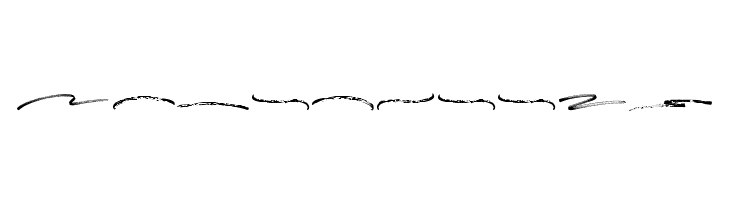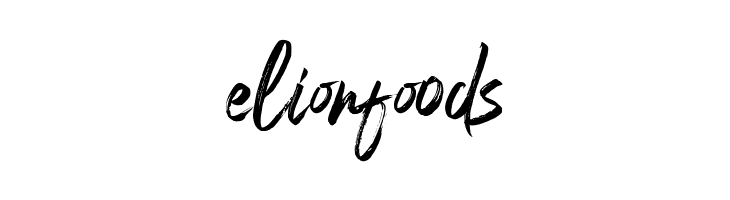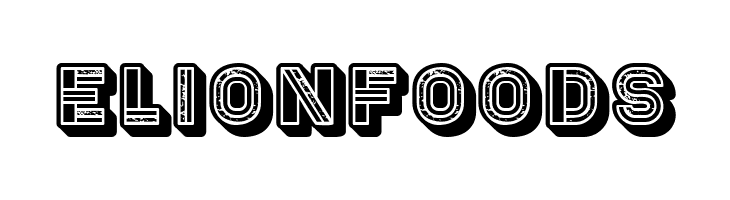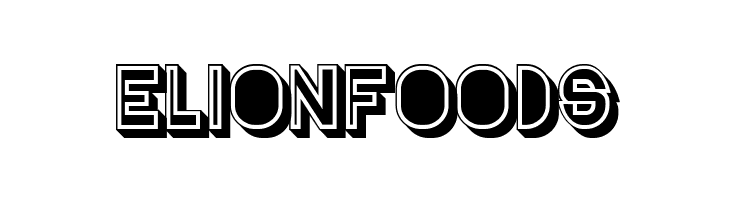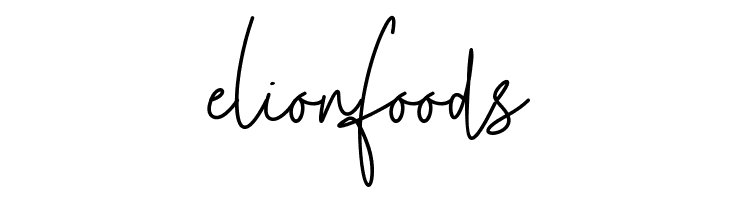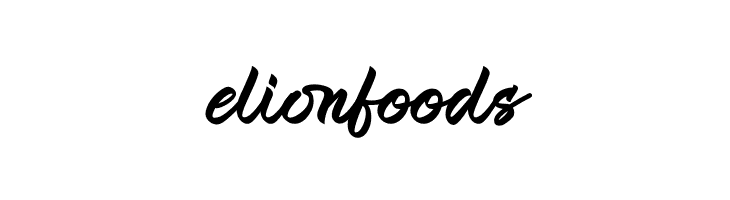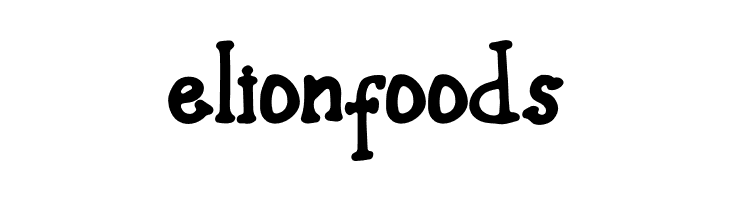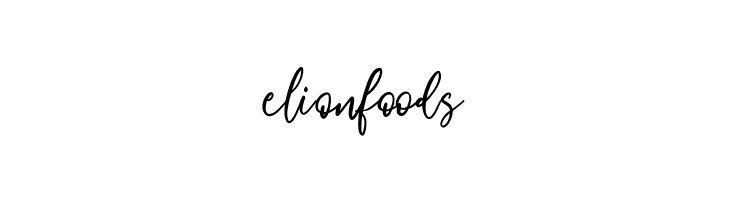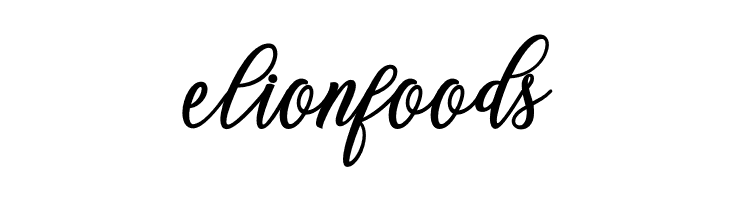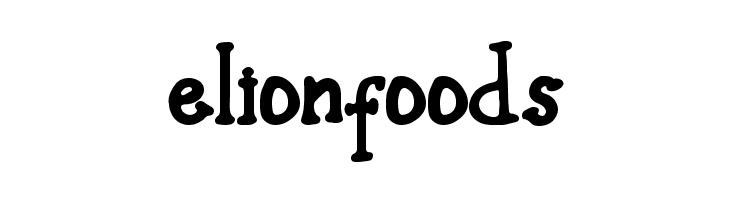
A fluid and elegant handwritten font with connected strokes and a dynamic slant.
A delicate, handwritten font with elegant, flowing strokes and a sophisticated style.
A playful, hand-drawn font with bold, rounded characters and a whimsical style.
A playful, hand-drawn font with rounded, bold strokes and a whimsical style.
A bold, decorative font with a three-dimensional, layered line effect.
A bold, decorative font with a 3D effect and intricate line patterns.
A modern, geometric font with clean lines and a minimalist style.
A bold, cursive font with smooth, flowing lines and a dynamic style.
A dynamic, brush-style font with expressive strokes and artistic flair.
A bold, condensed font with high contrast and elongated characters.
An elegant script font with flowing swashes and dynamic contrast.
A bold, expressive handwritten font with thick, brush-like strokes.
A dynamic, expressive handwritten font with flowing strokes and a casual aesthetic.
An elegant script font with decorative swirls and flowing cursive style.
A bold, geometric font with a 3D effect and strong contrast, ideal for headlines.
A playful, handwritten font with irregular strokes and a casual vibe.
A flowing, elegant script font with a modern, handwritten feel.
A flowing, elegant script font with smooth, connected strokes.
A playful, cursive font with elegant loops and swirls.
A modern, elegant font with high contrast and artistic flair.
A bold, hand-drawn font with a playful and energetic style.
A playful handwritten font with a casual and friendly style.
A bold, playful font with a cartoonish and informal style.
A geometric, octagonal font with a modern and industrial style.
A playful, handwritten-style font with flowing, cursive-like strokes.
An elegant, flowing script font with a natural handwritten style.
Elegant handwritten script font.
A playful, bold handwritten font with smooth curves and rounded edges.
A bold, italicized font with a blocky, geometric style, perfect for impactful headlines.
A bold, cartoonish font with playful serifs and a whimsical style.
A bold, playful font with a cartoonish style and exaggerated serifs.